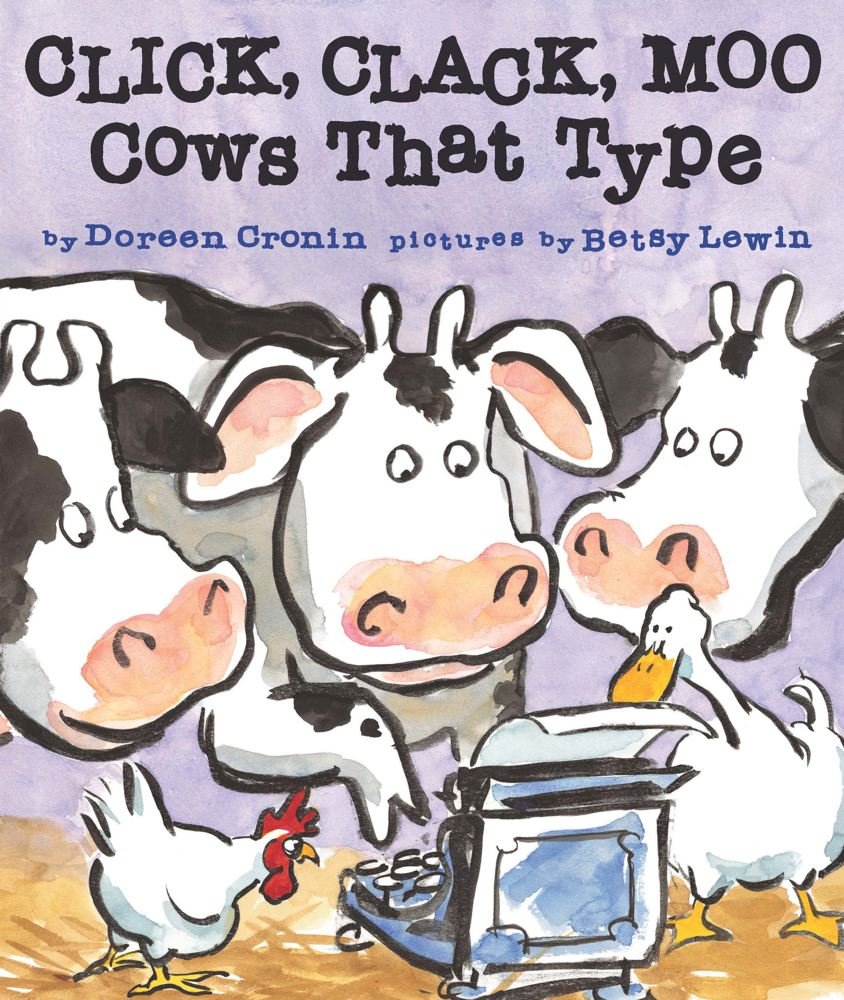
Click Clack Moo Font
BookClick, Clack, Moo: Cows That Type is a children's picture book written by Doreen Cronin and illustrated by Betsy Lewin. It is a story about a group of farm animals who learn to use a typewriter to communicate their needs and demands to their farmer.